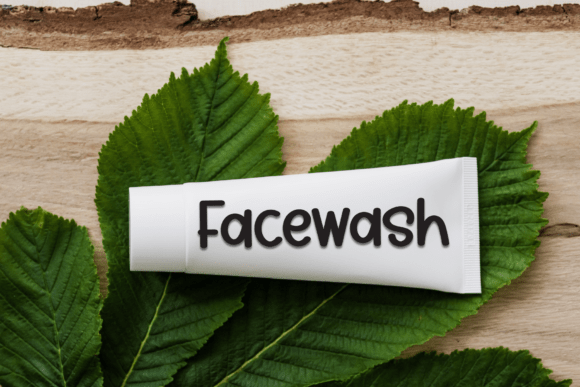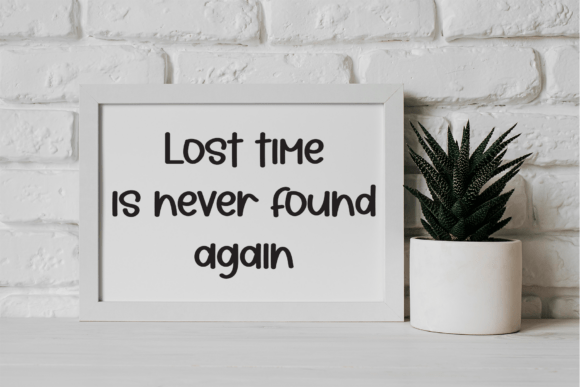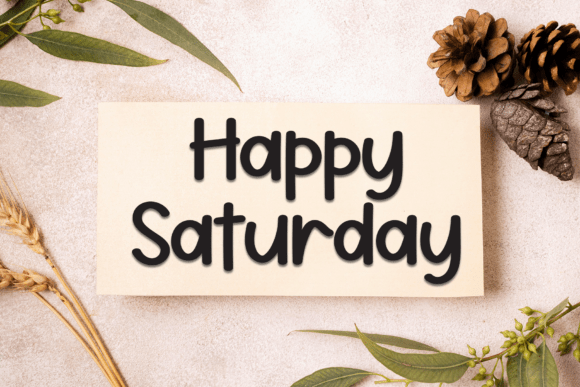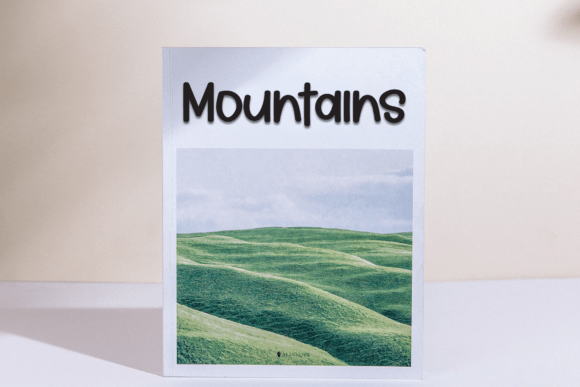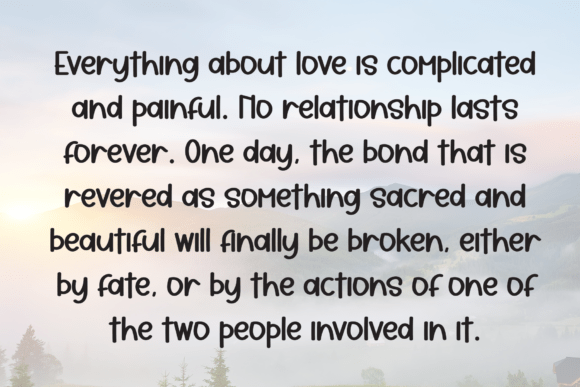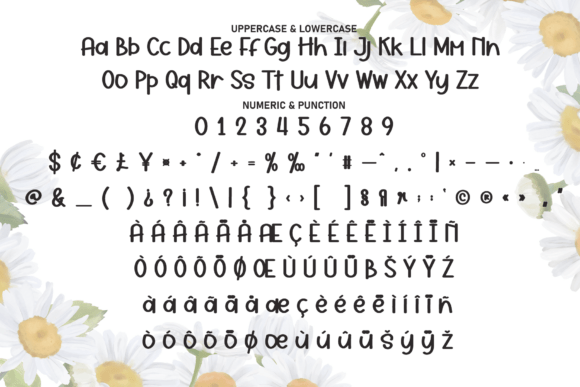
The Daisy Font: A Timeless Handwritten Treasure for Designers
I’ll never forget the design project that led me to discover the lovely Daisy Font. I was working on a branding project for a small business, and I just couldn’t find the right font to capture the playful yet elegant vibe they were going for. That was until I stumbled upon Daisy, a beautiful handwritten font that instantly won me over. In this article, I’ll share my experience with Daisy, its features, and how to make the most of it in your designs.
My Honest Review of Daisy Font
So, what makes Daisy so special? Here are a few things I love about this font:
- ✨ Unique and beautiful letterforms: Each letter in Daisy has its own character, making it perfect for creating eye-catching designs.
- ✅ Highly versatile: From logos to quotes, Daisy can be used for a wide range of design projects.
- 💫 Timeless appeal: Despite being a handwritten font, Daisy has a classic feel that won’t go out of style anytime soon.
Of course, no font is perfect, and Daisy has a few quirks to be aware of:
- 🤔 Limited kerning options: While Daisy’s default kerning is great, you may need to adjust it for certain design projects.
- ⚠️ Not ideal for body text: Due to its decorative nature, Daisy is best suited for headlines, logos, and short quotes rather than lengthy paragraphs.
- Take advantage of OpenType features, such as glyphs and stylistic alternates, to add more personality to your design.
The Story Behind Daisy Font
While the true story behind Daisy Font remains a mystery, it’s easy to imagine that it was created by a talented designer with a passion for handwritten typography. Perhaps they were inspired by the beauty of nature, or the elegance of traditional calligraphy. Whatever the inspiration, Daisy is a true gem that’s sure to delight designers and crafters alike.
| What is the best way to use Daisy Font? | Daisy is perfect for creating eye-catching logos, branding, and quotes. Use it to add a touch of elegance and personality to your designs. |
| Is Daisy Font suitable for body text? | No, Daisy is best suited for headlines, logos, and short quotes. Its decorative nature makes it less suitable for lengthy paragraphs. |
| How do I access OpenType features in Daisy Font? | OpenType features can be accessed in design software that supports OpenType, such as Adobe Photoshop and Illustrator. Look for features like glyphs, stylistic alternates, and kerning options to add more personality to your design. |